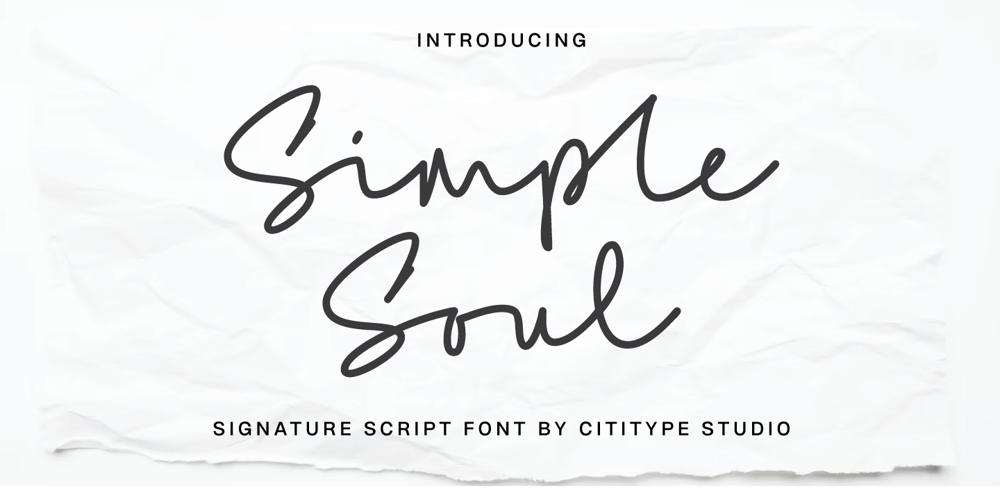
Simple Soul Font Family was designed by Siti Saribanon Nurjannah and published by Cititype. Simple Soul contains 1 styles and family package options. “Simple Soul” is a monoline signature typeface that effortlessly blends elegance and charm. Its fluid, handwritten style, combined with consistent stroke width, creates a polished look perfect for logos, brand names, invitations, and more. The inclusion of OpenType ligatures ensures a natural flow, providing smooth, connected letters that add an authentic, chic touch to every word.With a moderate x-height and seamless connections, Simple Soul strikes a balance between legibility and sophistication. The rounded terminals contribute to a soft, friendly appearance, making it ideal for conveying intimacy and style. Inspired by classic handwritten signatures, Simple Soul merges timeless calligraphy elegance with modern monoline simplicity, making it a versatile choice for any design.